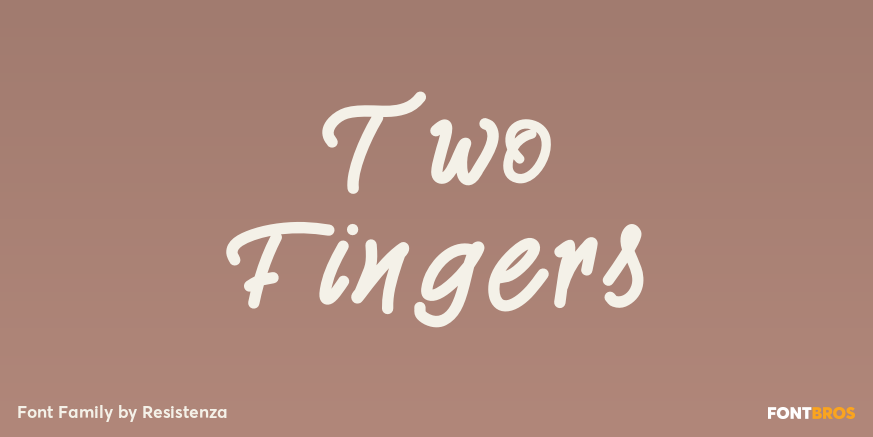
Two Fingers
About Two Fingers
We love Bodoni, it\’s one of our favorite classics. So it\’s easy to start scketching new versions just for fun. Two Fingers font was born between Sofia and Torino. 90% of the family has been handrawn just with our fingers. We are both